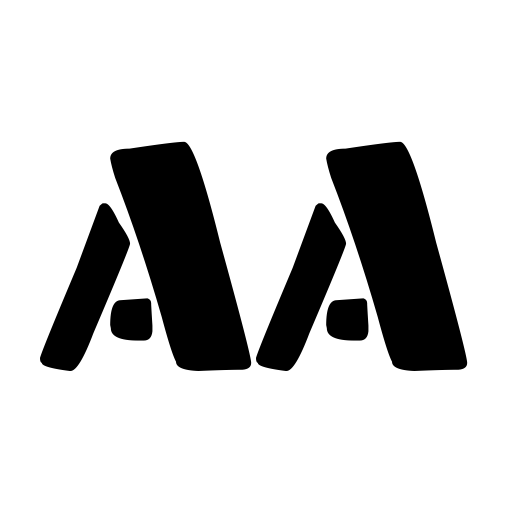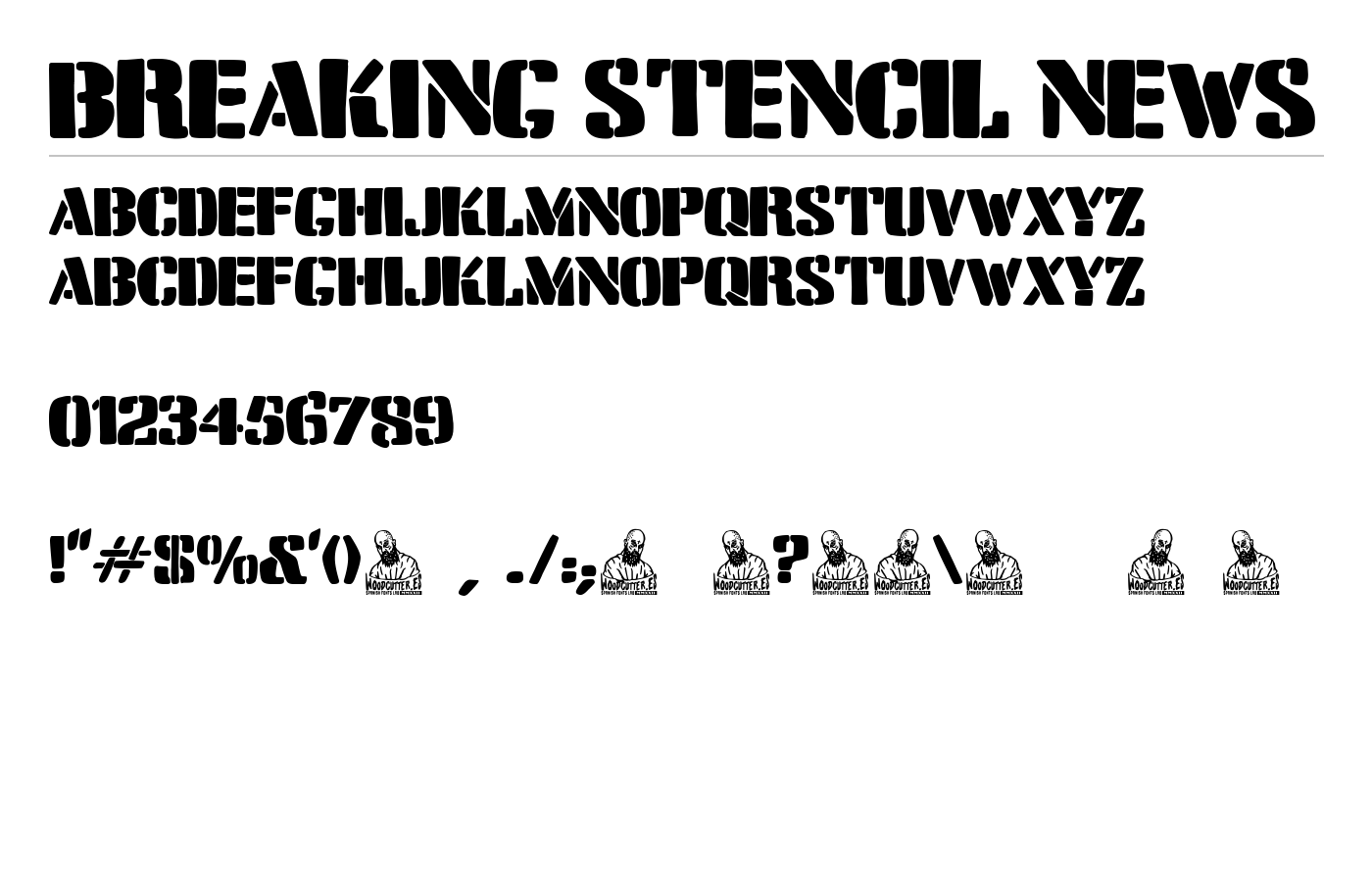
Breaking Stencil News is a bold, condensed stencil font with strong, blocky letterforms that convey a rugged, industrial feel. Its high contrast between thick and cut-out strokes makes it ideal for impactful headlines, posters, and branding where a sense of urgency or strength is desired. This font works well for designs needing a vintage military or newsprint-inspired aesthetic, adding a bold and authoritative voice to any project.
Breaking Stencil News Font
About Breaking Stencil News Font